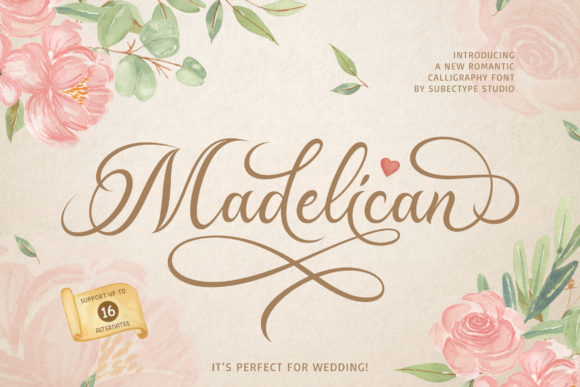
Immerse yourself in the captivating world of Madelican Font, a script font family that weaves together the charm of modern calligraphy with a touch of romantic elegance. Crafted by the skilled hands of Subectype, Madelican is a visual masterpiece that transforms your digital creations into works of art.
With its graceful curves and timeless beauty, Madelican Font adds a touch of sophistication and charm to any project. Its versatile nature makes it the perfect choice for a wide range of applications, from logos and posters to invitations and social media graphics. Unleash your creativity and let Madelican Font elevate your designs to new heights.
Picture a logo that captures the essence of your brand with its elegant script, leaving a lasting impression on your audience. Envision posters that come alive with captivating messages, drawing the attention of all who behold them. Create digital masterpieces that speak volumes, whether it's an invitation to a special event or a social media post that resonates with your followers.
Madelican Font is more than just a font; it's an expression of your unique style and vision. Its timeless appeal ensures that your creations will stand the test of time, leaving a lasting impact. Embrace the allure of Madelican Font and embark on a creative journey that knows no bounds.
Indulge in the beauty of Madelican Font today and let your imagination run wild. Transform your designs into captivating works of art, leaving a lasting impression on all who encounter them. Experience the magic of Madelican Font and elevate your creative endeavors to new heights.